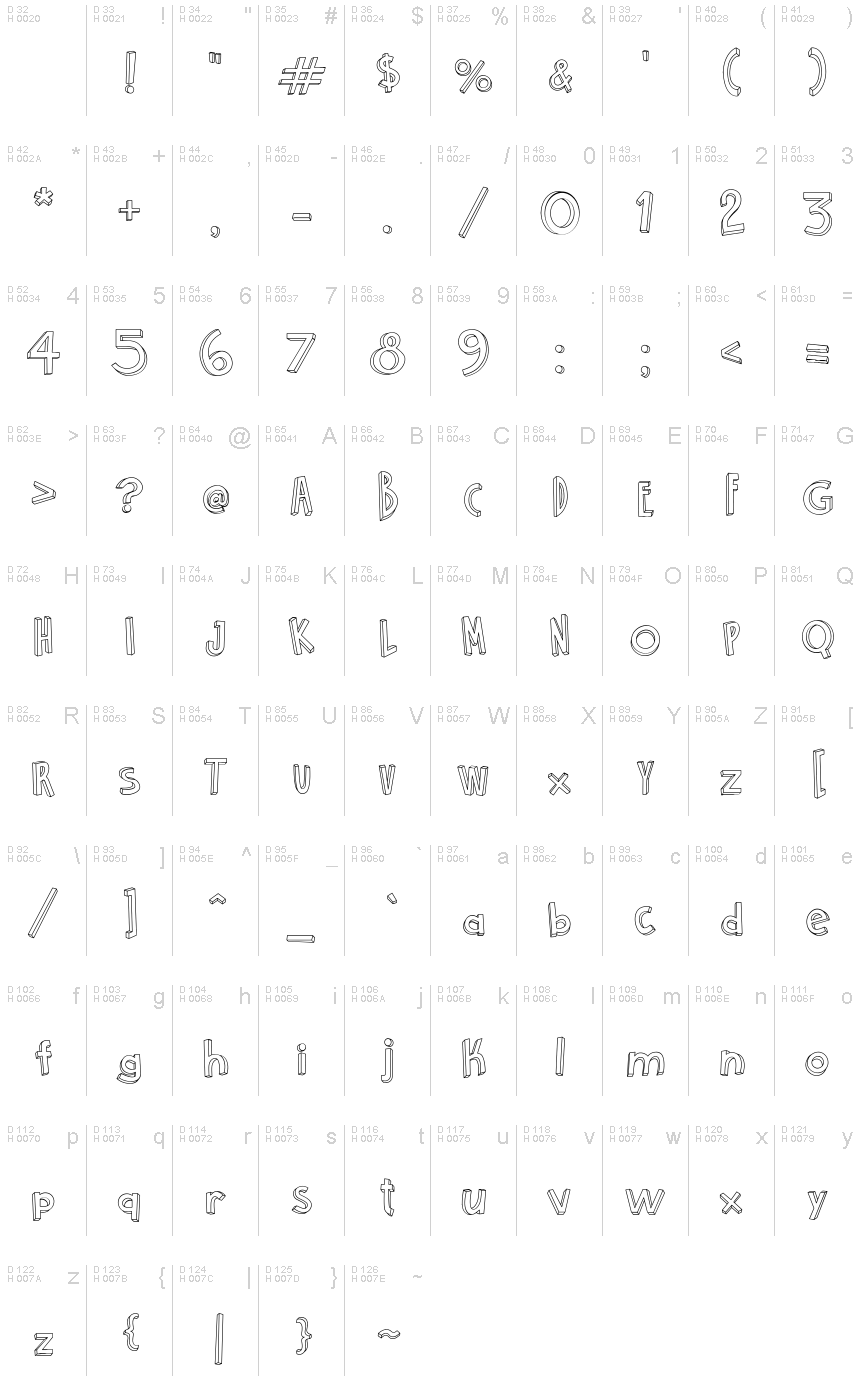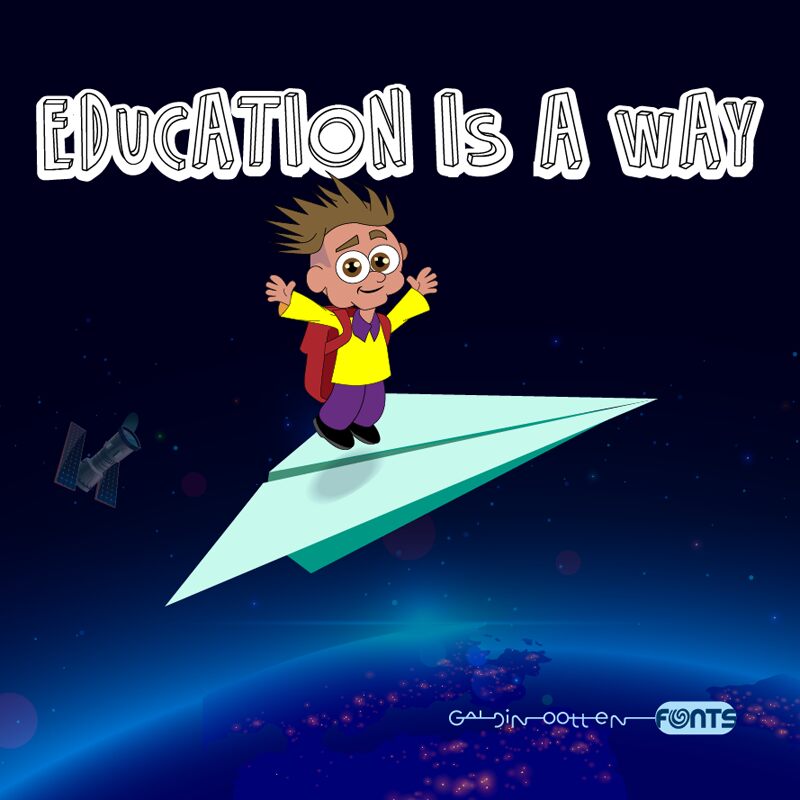
Education is a Way
Education is a Way font by Galdino Otten Fonts is a lively 3D cartoon display typeface with linear attributes. It stands out with its minimalist, outlined artistic appearance, resulting in a more casual vibe. The distinct modern look, detailed in a clearly visible manner, puts emphasis on this font being suitable for contemporary applications and emerging trends.
This free display font is ideal for creative design projects and branding packages all across social media platforms and print work. Use it to your advantage in product packaging, advertisement posters, fun book covers, logo designs, headlines, printouts for children of all ages, videos related to education or information sharing in general etcetera!